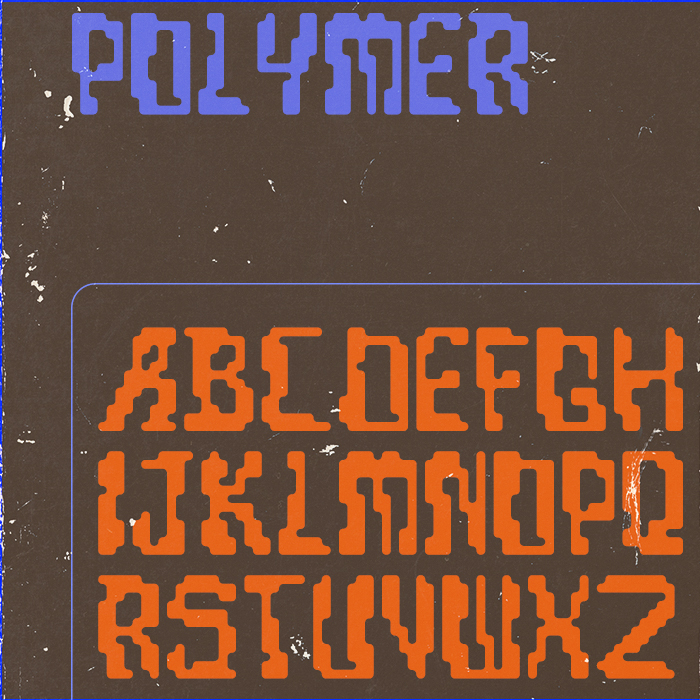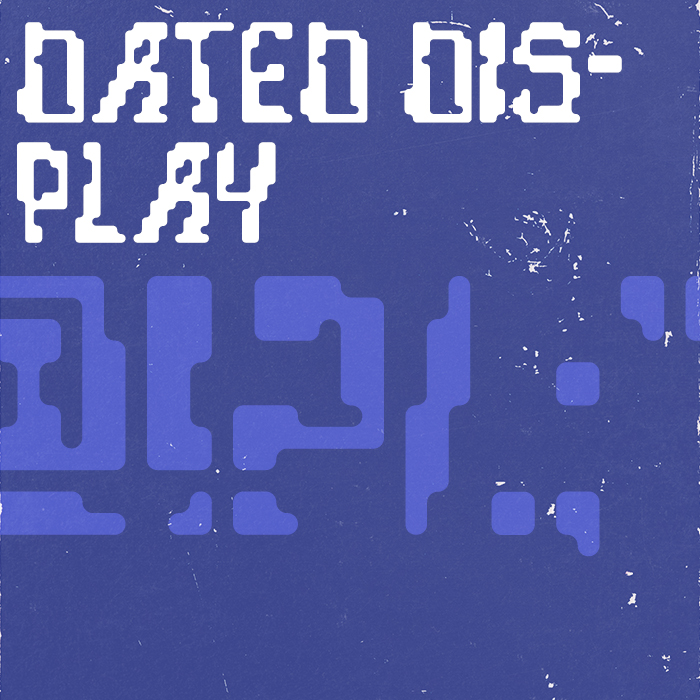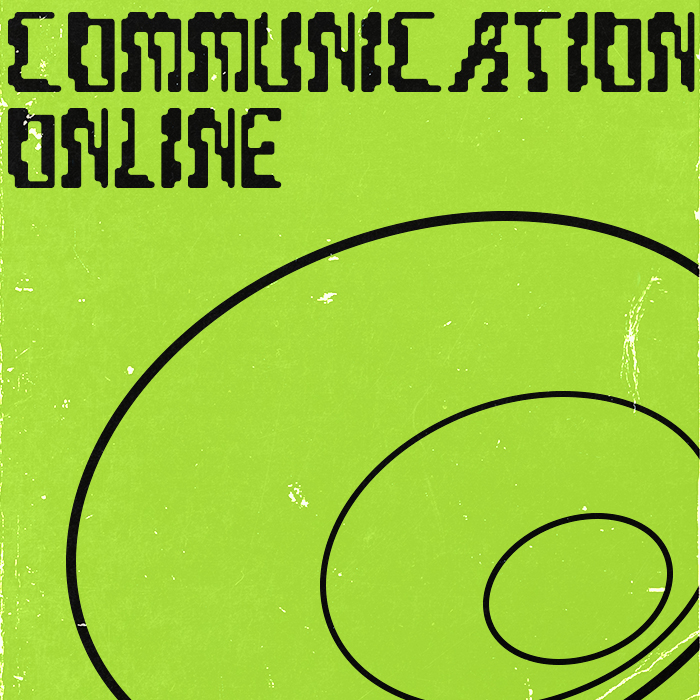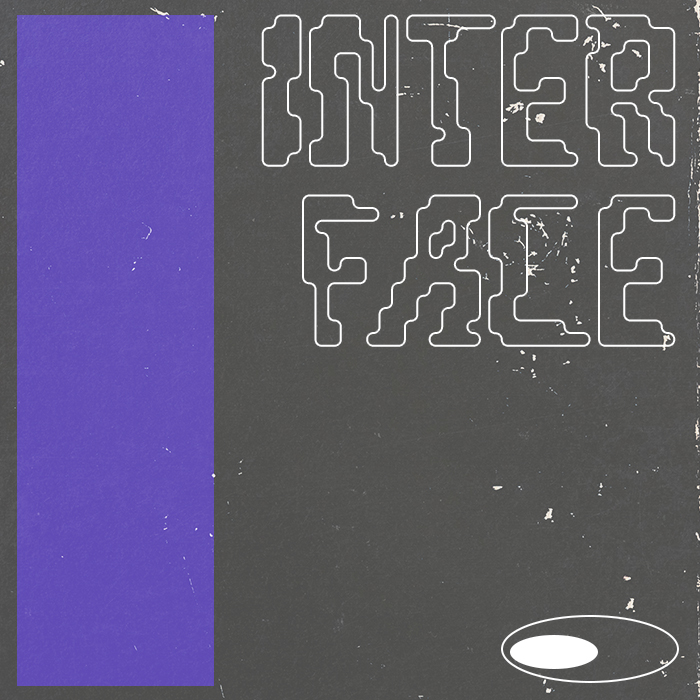
Pixelated retro-futuristic font. All caps, very basic character set, no kerning. Grid-based letterforms with rounded edges are typically designed for arcade games, sci-fi, or early computer typography. That means a predictable modular structure without much irregularity. However, your letters have too much randomness and decay, so I'm confused what this font is meant for.
The letters are a mixed bag. Most of them are OK, but they don't seem to work very well together. The D and O are too similar; A and Z need a complete redesign. It seems you never thoroughly tested this font. It takes time to learn about the best proportions, rhythm, and harmony in typography.
The "Polymer" font name is already taken by Darren Scott (T-26).
The demo pictures exude a retro vibe: faded colours, a realistic old-paper texture, and a grunge effect. They look like old posters/vinyl covers from the 1970s. Nailed it.